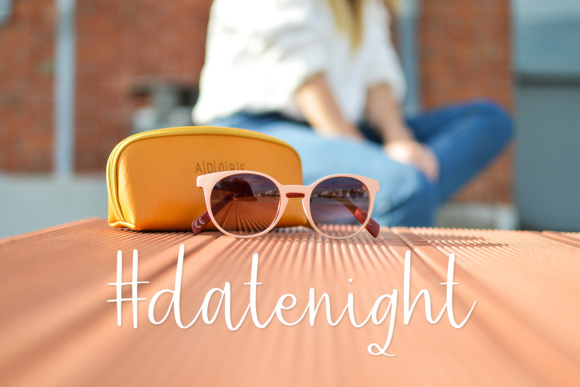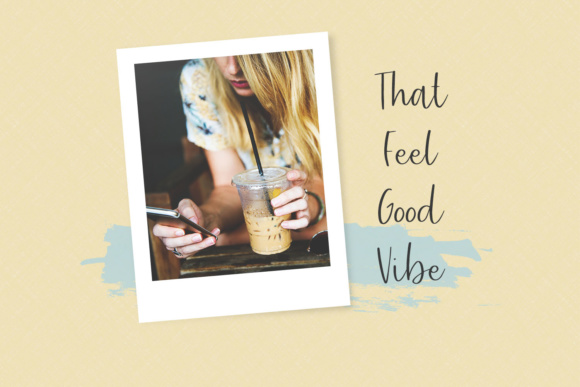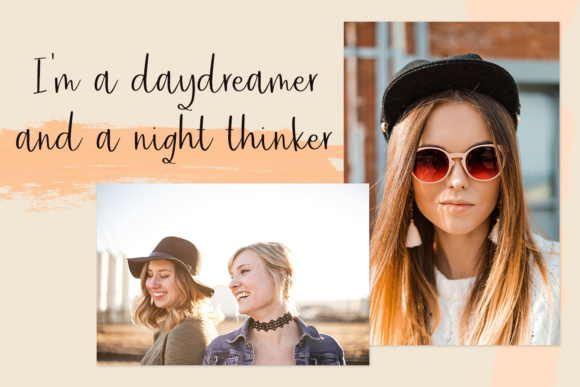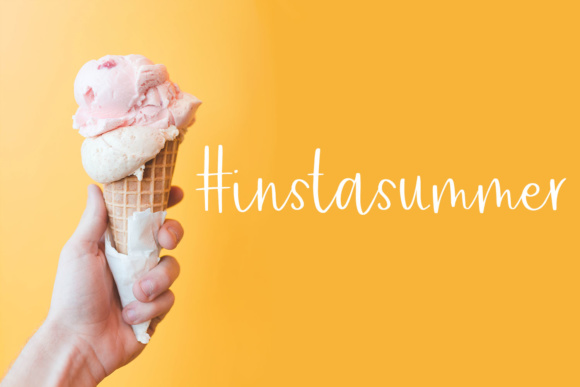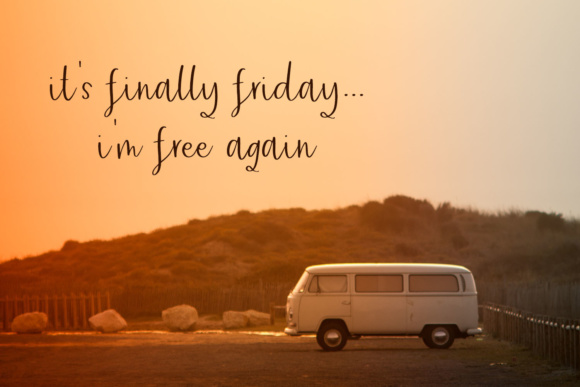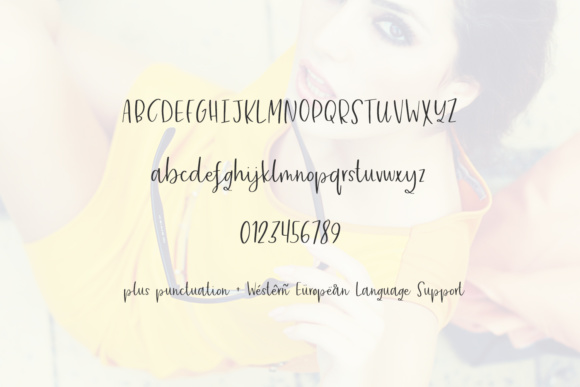
Friday Vibes Font
About Friday Vibes Font
Friday Vibes is a super casual, effortless script font that will add a breeziness to your designs. This font isn’t ever over the top, and is easy to read and use in a wide range of creative projects.